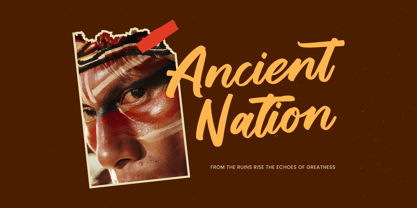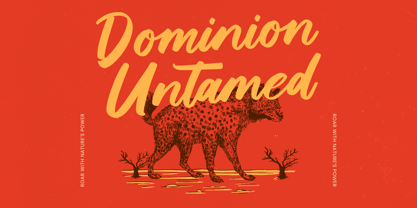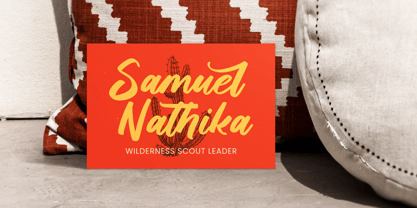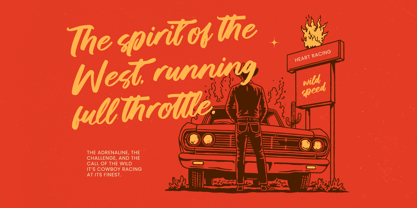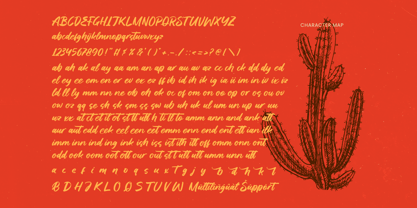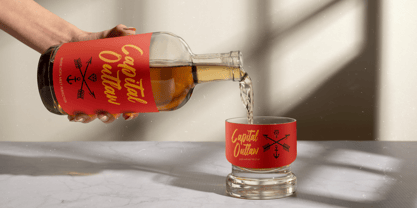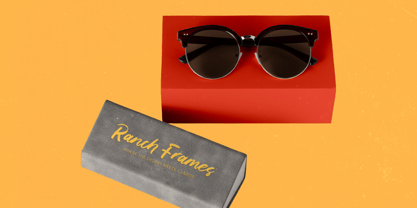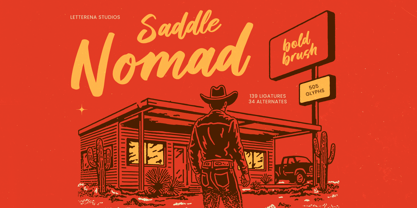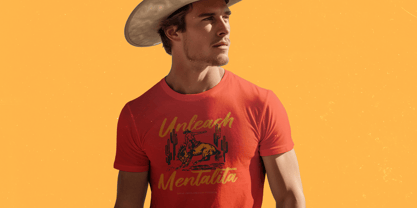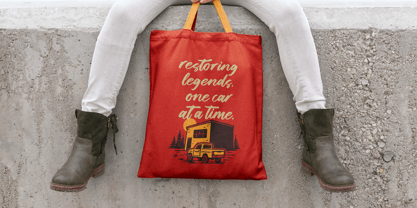
Saddle Nomad
by Letterena Studios
The Saddle Nomad Font Family was designed by Heru Utama Putra and published by Letterena Studios. Saddle Nomad contains 2 styles and family package options. More about this family
Unleash the raw energy of the open road with Saddle Nomad - Bold Brush, a powerhouse script designed to command attention. This expressive brush typeface captures a perfect balance between vintage Americana and modern hand-drawn artistry. Its fluid, confident strokes and bold weight make it an ideal choice for creators seeking to infuse their projects with a sense of adventure and rugged sophistication. Elevate your creative toolkit with unmatched flexibility provided by Saddle Nomad - Bold Brush. Boasting an impressive collection of 505 glyphs, including 139 ligatures and 34 alternates, this font allows for truly custom-lettered appearances. These features ensure that every design remains unique, providing a dynamic flow that mimics authentic hand-painted signage found along the legendary highways of the West.